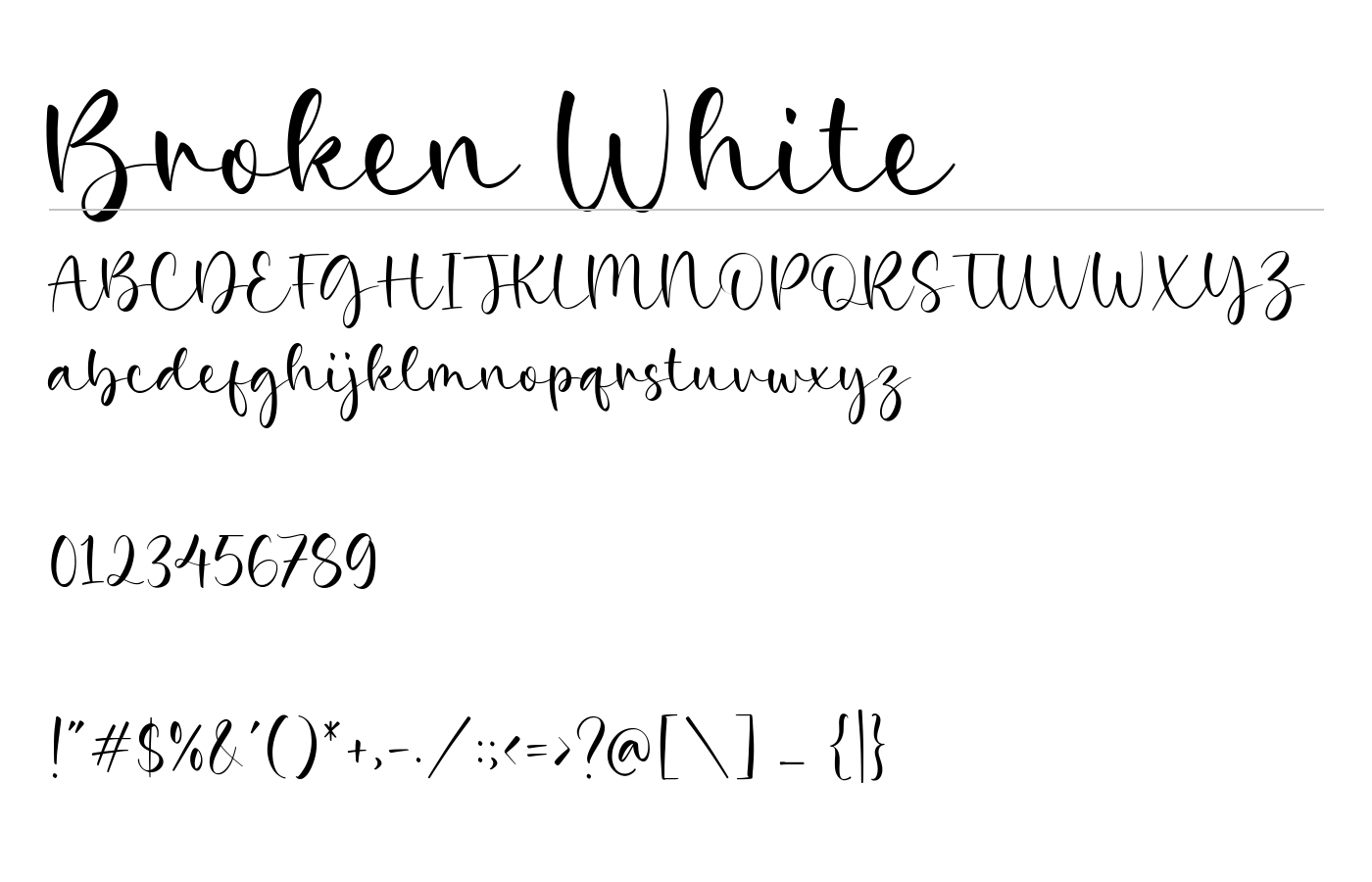
Broken White is a delicate and elegant script font with a handwritten style, featuring smooth, flowing strokes and a moderate contrast that gives it a natural yet refined appearance. Its tall x-height and lightly whimsical letterforms make it perfect for adding a personal, charming touch to invitations, branding, and editorial design with a fresh, stylish feel. This font works beautifully in contexts where a graceful and approachable aesthetic is desired.
Broken White Font
About Broken White Font